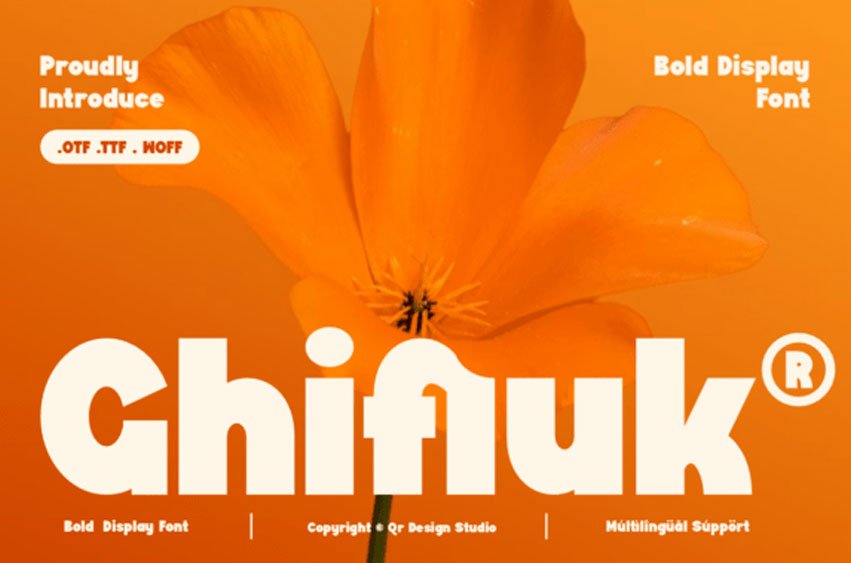
Ghifiuk Font Radiate warmth and retro energy with Ghifuk, a bold display font designed to make a statement. This typeface features heavy, high-impact letterforms with a soft, rounded finish and playful, groovy curves that evoke the sun-drenched aesthetics of the 1970s.
With its substantial weight and rhythmic flow, Ghifuk is the premier choice for vintage-inspired branding, high-energy editorial headlines, modern “groovy” social media graphics, and vibrant packaging. It’s a font that doesn’t just sit on a page—it glows.